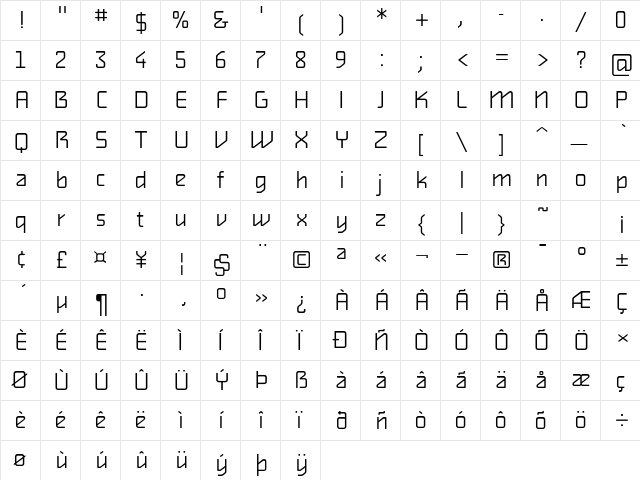
Alphaville Light Regular
Design Context for Alphaville Light Typeface
Alphaville Light offers clean, dependable letterforms without strong stylistic allegiance, making it a practical choice for designers who need flexibility. The delicate stroke weight brings airiness and refinement to layouts.